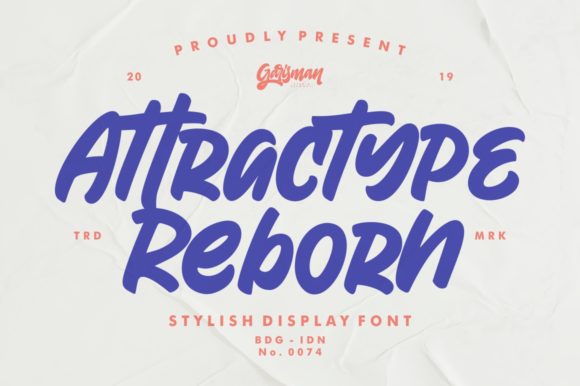
Unleash your creative spirit and make a lasting impact with Attractype Reborn, the ultimate display font that's guaranteed to turn heads. With its captivating curves and bold urban edge, this script font will elevate your designs to new heights, leaving a lasting impression on your audience.
Immerse yourself in the world of Attractype Reborn, a font specially designed to make your packaging designs stand out. Its unique blend of elegance and edginess will add a touch of sophistication to your products, capturing the attention of potential customers and leaving them craving more.
Feel the power of Attractype Reborn's expressive personality, bringing life to your creative ideas. Whether you're crafting logos, posters, social media graphics, or any other design project, this versatile font will seamlessly adapt to your vision, adding a touch of originality and panache that will set your work apart from the rest.
Experience the joy of creating with Attractype Reborn, the ultimate companion for designers seeking to make a statement. Its effortless flow and boundless creativity will inspire you to explore new possibilities, transforming your designs into captivating masterpieces that leave a lasting impression. Embrace the power of Attractype Reborn today and unlock a world of creative possibilities.